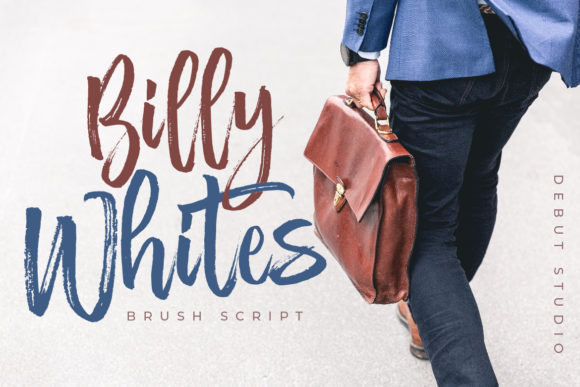
Billy Whites Font: The Perfect Casual and Fun Handwritten Font for Your Projects
In the world of typography, fonts play a crucial role in conveying the tone and personality of a brand or project. When it comes to creating a casual and fun vibe, a handwritten font can be the perfect fit. One such font that has gained popularity among designers and crafty DIY enthusiasts is Billy Whites Font. In this article, we’ll dive into the features and benefits of Billy Whites Font, and explore how it can elevate your logos, branding, social media, and DIY projects.
What is Billy Whites Font?
Billy Whites Font is a casual, fun handwritten font created by using a brush pen. The font’s unique charm lies in its clean and quirky style, making it an excellent choice for a wide range of projects. The font’s creator aimed to design a font that would be versatile and easy to use, while also conveying a sense of playfulness and friendliness.
Key Features of Billy Whites Font
- Handwritten style: Billy Whites Font has a genuine handwritten look, which adds a personal touch to any project.
- Clean and quirky: The font’s clean lines and quirky style make it stand out from other handwritten fonts.
- Brush pen effect: The font was created using a brush pen, which gives it a unique texture and feel.
- Versatile: Billy Whites Font can be used for a wide range of projects, from logos and branding to social media and DIY crafts.
Ideas for Using Billy Whites Font
Billy Whites Font is an incredibly versatile font that can be used in various projects. Here are some ideas to get you started:
- Logos and branding: Use Billy Whites Font to create a unique and memorable logo for your business or brand.
- Social media graphics: Add a personal touch to your social media graphics, such as Instagram posts and Facebook covers, with Billy Whites Font.
- DIY crafts: Use Billy Whites Font to create custom titles and headings for your DIY craft projects, such as handmade cards and scrapbooking.
- Stationery and greeting cards: Add a touch of personality to your stationery and greeting cards with Billy Whites Font.
Benefits of Using Billy Whites Font
So, why choose Billy Whites Font for your projects? Here are some benefits of using this font:
- Unique and memorable: Billy Whites Font’s quirky style makes it stand out from other fonts, ensuring your project will be memorable.
- Easily readable: Despite its handwritten style, Billy Whites Font is easy to read, making it perfect for body text and headings.
- Time-saving: With Billy Whites Font, you can create professional-looking projects in no time, thanks to its clean and simple design.
Tips and Tricks for Using Billy Whites Font
To get the most out of Billy Whites Font, here are some tips and tricks to keep in mind:
- Experiment with colors: Billy Whites Font looks great in a variety of colors, so don’t be afraid to experiment and find the perfect hue for your project.
- Mix and match: Combine Billy Whites Font with other fonts to create a unique and visually appealing typography scheme.
- Pay attention to spacing: Make sure to adjust the spacing between letters and words to ensure your text is easy to read.
- Use it consistently: Use Billy Whites Font consistently throughout your project to create a cohesive look and feel.
In conclusion, Billy Whites Font is a versatile and fun handwritten font that can add a personal touch to any project. Its clean and quirky style makes it perfect for logos, branding, social media, and DIY crafts. With its ease of use, readability, and affordability, Billy Whites Font is an excellent choice for designers and crafty DIY enthusiasts alike. So why not give it a try and see how it can elevate your projects?